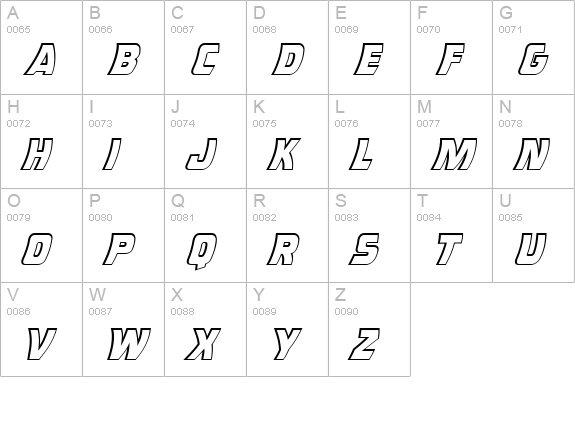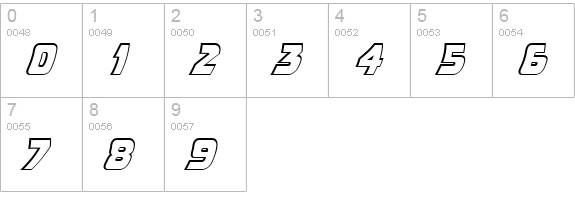
CCDoubleBack-Future Font Details
The CCDoubleBack-Future font is a futuristic and innovative typeface that exudes a sense of creativity and modernity. With its sleek and stylish design, this font is perfect for projects that require a contemporary touch. Its unique double back style adds a dynamic and eye-catching element to any text or design. This font is not only visually appealing but also highly versatile, making it suitable for a wide range of applications including logos, headlines, posters, and more. Its clean lines and sharp edges give it a professional and polished look that is sure to make your work stand out. Best of all, CCDoubleBack-Future is available for free download at FontsMarket.com, allowing you to access this high-quality font without any cost. Don't miss out on the opportunity to enhance your designs with this stunning and modern typeface.